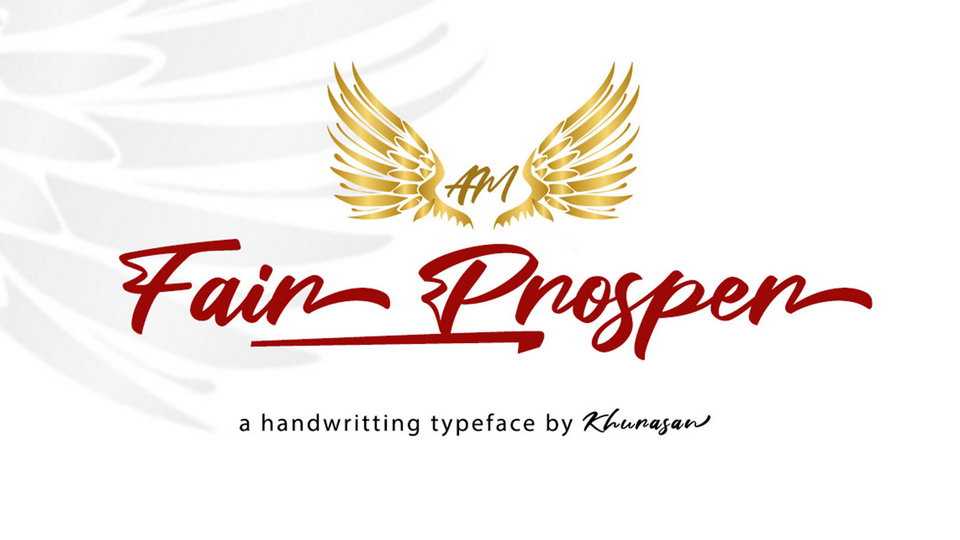
Download Fair Prospen font, an amazing hand lettered script font with impressive look. Ideal for eye-catching logos, branding, merchandise, advertisement, blogs and social media and more.